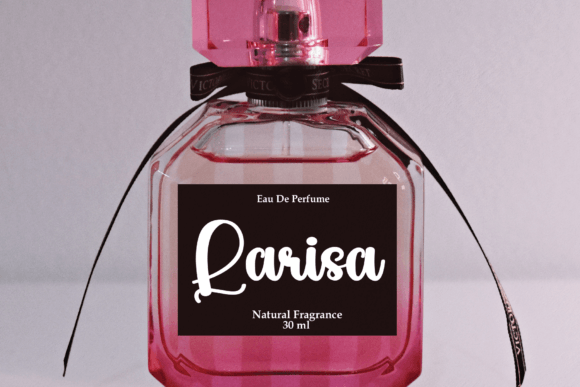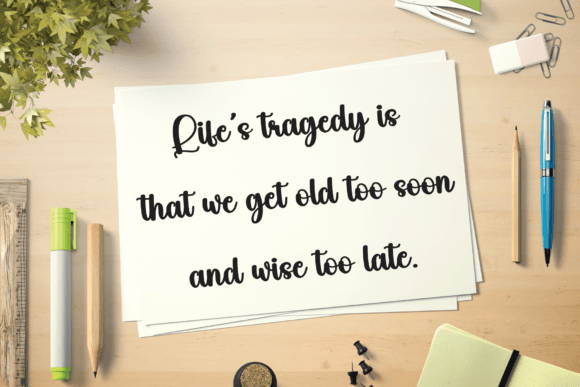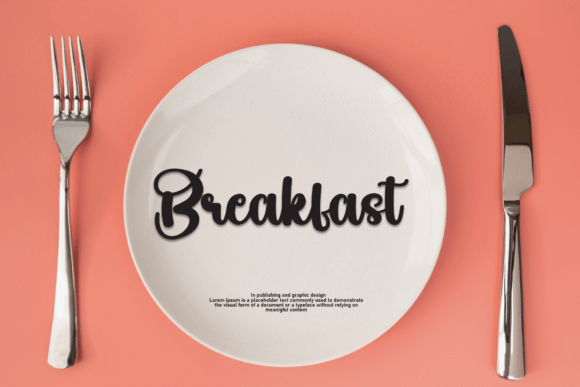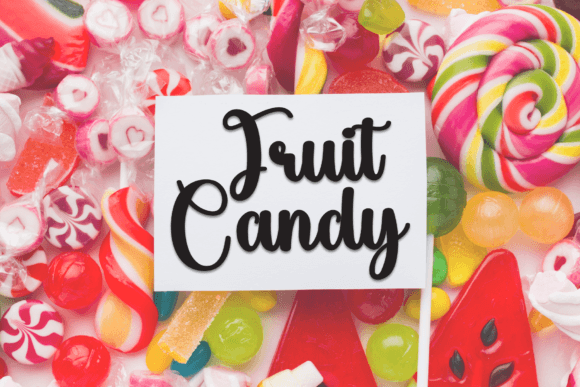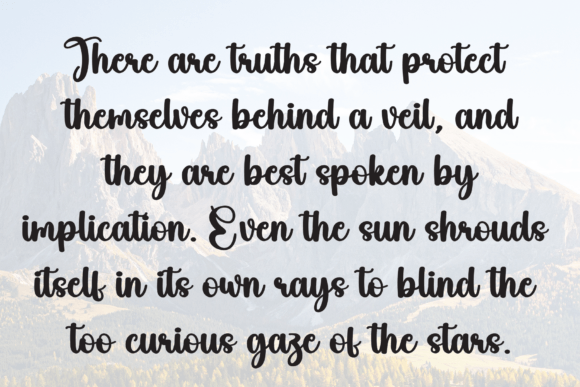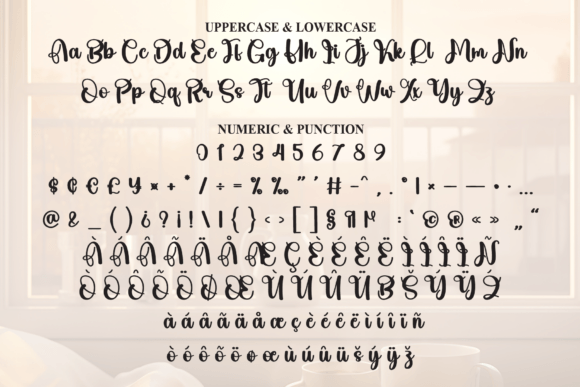
Adding a Personal Touch with Fancy Morning Font
Who hasn’t had one of those moments where you’re brainstorming ideas for a project, and suddenly, everything clicks into place? The perfect font pops into your head, and you can almost see the design unfolding before your eyes. For designers, those ‘aha’ moments are a treasure, and they often rely on the right fonts to bring their creative visions to life.
One such font that’s been making waves in the design community is Fancy Morning Font. This bold, handwritten font is all about exuding a playful yet strong vibe, making it perfect for titles and designs that need to stand out. Its thick strokes give it a fun, personal touch that’s ideal for posters, greeting cards, and other creative projects that demand a lively and casual style.
Fancy Morning Font Key Features
- Unique Characteristics: Includes 30 hand-drawn flourishes and ornaments for added elegance and sophistication
Fancy Morning Font Review
I recently had the chance to work with the Fancy Morning Font, and I must say it’s a unique and intriguing choice. Here’s my honest take on this font.
- Whimsical feel: The Fancy Morning Font has a charming, storybook quality that’s perfect for projects that need a touch of magic.
- Highly customizable: The font comes with a wide range of weights, from light to bold, making it easy to adapt to different design styles.
- Legibility: Despite its playful nature, the font is surprisingly easy to read, even at smaller font sizes.
- Overuse risk: The Fancy Morning Font’s whimsical feel can quickly become overused and cliche if not applied judiciously.
- Limited versatility: While the font is great for projects with a whimsical or magical theme, it may not be the best choice for more serious or professional designs.
Overall, I’d say the Fancy Morning Font is a great addition to any designer’s toolkit, but it’s essential to use it thoughtfully and in context. With the right project, it can add a touch of magic and whimsy that’s hard to resist.
Some common use cases for Fancy Morning Font include:
– Wedding invitations and stationery
– Luxury branding and marketing materials
– Elegant social media graphics and posts
– High-end packaging and labels
– To add a touch of sophistication and elegance to any design, use Fancy Morning Font in combination with other high-end fonts and design elements.
Alternatives to Fancy Morning Font
Creamer Script
Creamer Script is a elegant, handwritten font ideal for creating a warm and inviting atmosphere. It’s perfect for use in branding, advertising, and editorial content where a touch of sophistication is desired. In comparison to Fancy Morning Font, Creamer Script has a more classic and refined feel, making it suitable for a wider range of applications.
Lato Script
Lato Script is a modern, elegant font that combines the sophistication of a script font with the readability of a sans-serif font. It’s ideal for use in digital products, such as websites and mobile apps, where a clear and concise font is necessary. Compared to Fancy Morning Font, Lato Script is more versatile and easier to read, making it a great choice for digital design.
Carolyna Pro is a beautiful, high-end script font that’s perfect for luxury branding, advertising, and editorial content. It’s ideal for use in situations where a touch of elegance and sophistication is desired. In comparison to Fancy Morning Font, Carolyna Pro has a more refined and luxurious feel, making it suitable for high-end applications.
What is the recommended font size for using the Fancy Morning Font?
The Fancy Morning Font is designed to be used at font sizes between 12 and 48 points. Using the font at sizes outside of this range may affect its readability and overall appearance. For optimal results, we recommend using the font at sizes between 14 and 36 points.